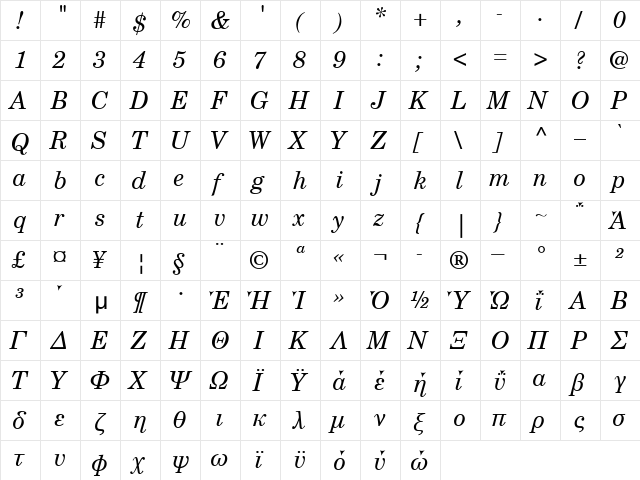
NewCenturySchlbkGreek Up Italic
Design Context for NewCenturySchlbkGreek Up Typeface
NewCenturySchlbkGreek Up is a composed and adaptable typeface that performs quietly and consistently across a wide range of design contexts. The slanted form adds forward momentum and visual energy.
Pro Tip: Try NewCenturySchlbkGreek Up for annotation and caption copy alongside an upright companion — the contrast in angle creates a dynamic but ordered typographic system.